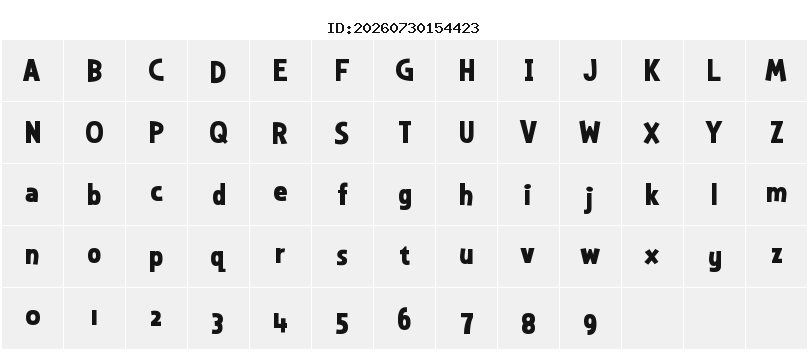
• Font Name: Lyons Secondary
• Designer: Dan P. Lyons (D-Lyons Design)
About Lyons Secondary.ttf
Lyons Secondary.ttf is a modern, elegant sans-serif font designed for ultimate readability and visual harmony. Perfect for branding, headlines, web design, and print materials.